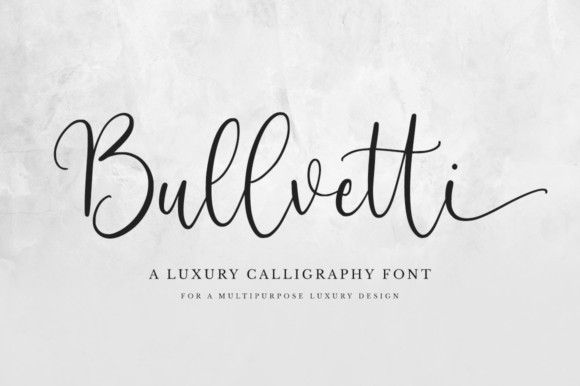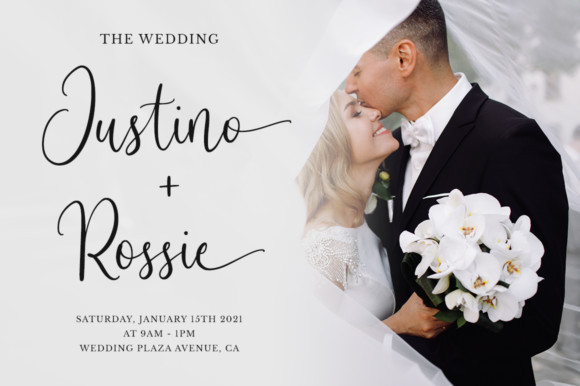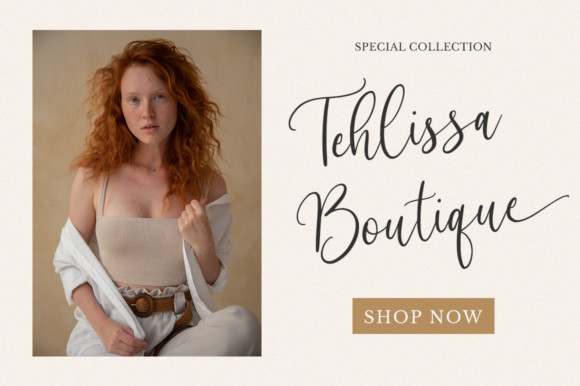
Bullvetti Font
Bullvetti is a ravishing, graceful and cursive handwritten font. It has beautiful and well balanced characters and as a result, it matches a wide pool of romantic designs.